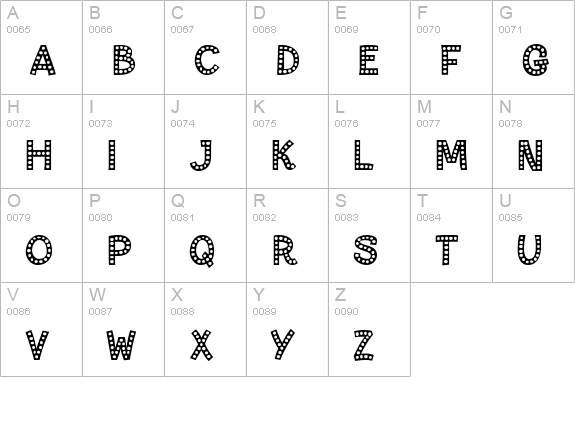
Paltime Marquee font is a stunning display typeface that exudes elegance and sophistication. With its vintage-inspired design and classic charm, this font is perfect for adding a touch of nostalgia to your projects. The unique letterforms and stylish curves make Paltime Marquee font a versatile choice for various design applications, such as posters, invitations, logos, and more. The best part about Paltime Marquee font is that it is completely free to download at FontsMarket.com. You can easily access this beautiful font and enhance your creative projects without any cost. So why wait? Add a touch of timeless elegance to your designs with Paltime Marquee font today!